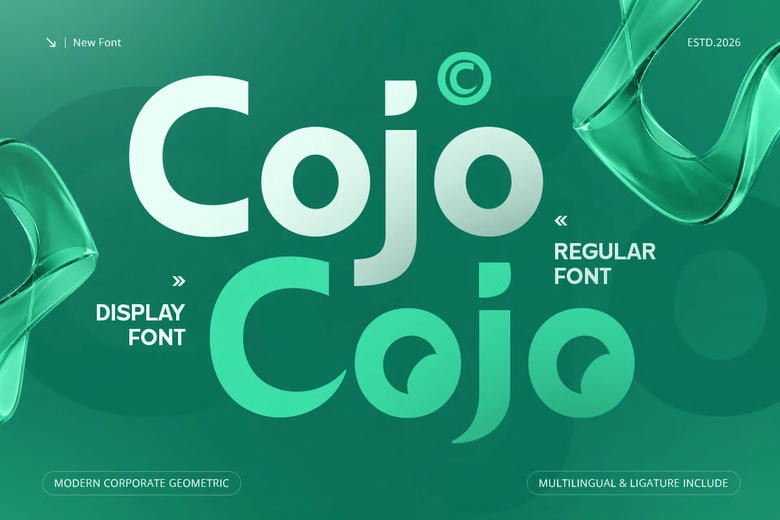
Cojo Font
Cojo is a modern geometric display font made for corporate branding, logo design, business identities, and visual communication. Its design draws inspiration from geometric precision, minimalism, and current corporate style.
Cojo uses clean geometric shapes and balanced proportions to create a modern, professional look. It is easy to read and stands out, making it a good choice for logos, branding, headlines, presentations, websites, and marketing materials.
If you are building a corporate identity, starting a new business, designing a logo, or creating a brand system, Cojo offers clean and reliable typography that helps you show confidence, clarity, and a modern style.
Cojo Modern Logo Font